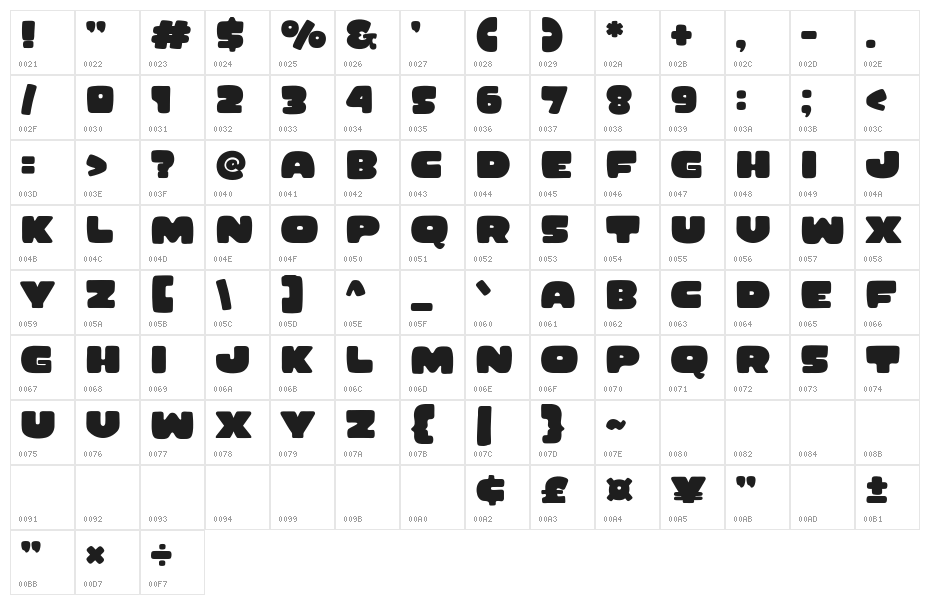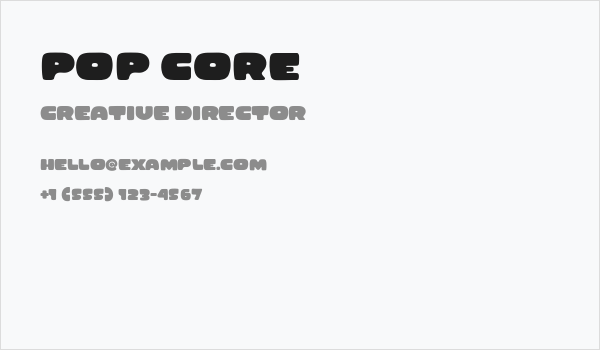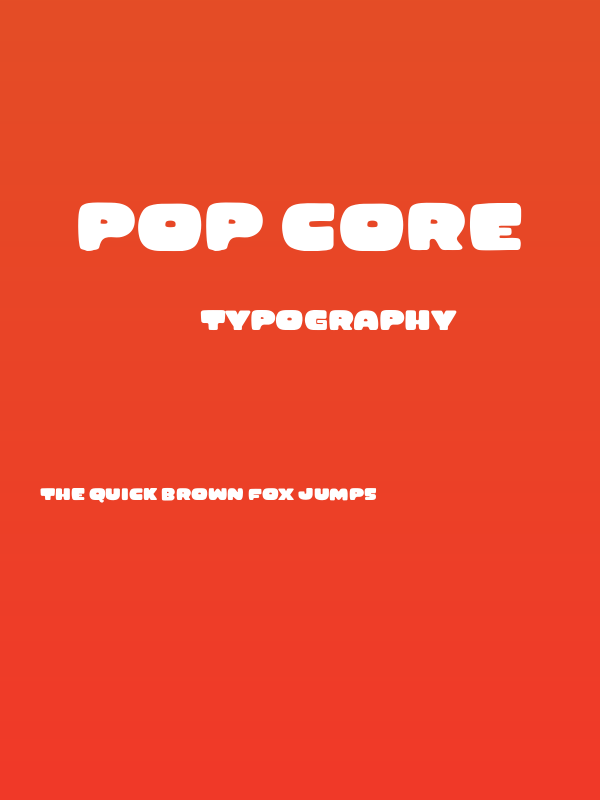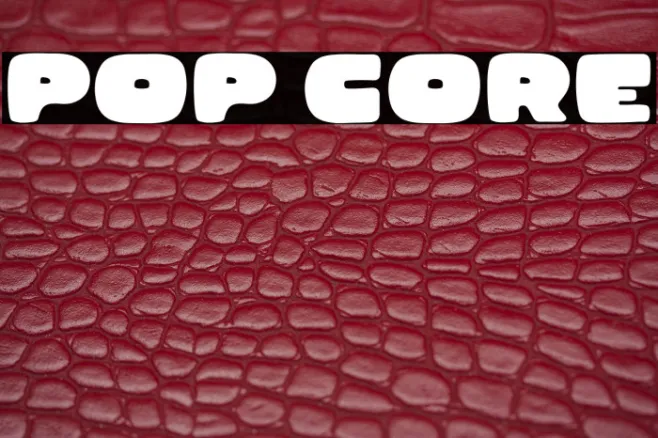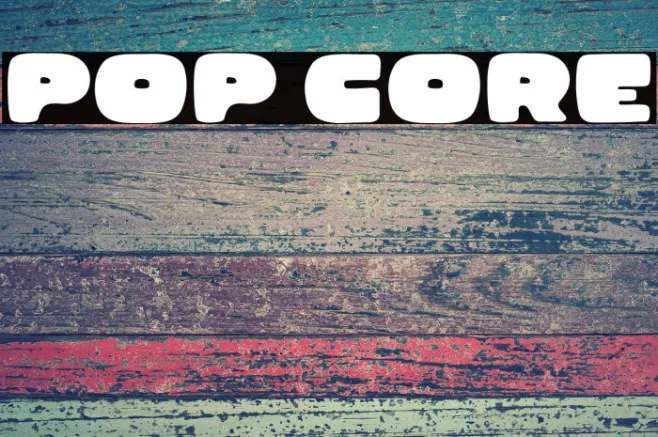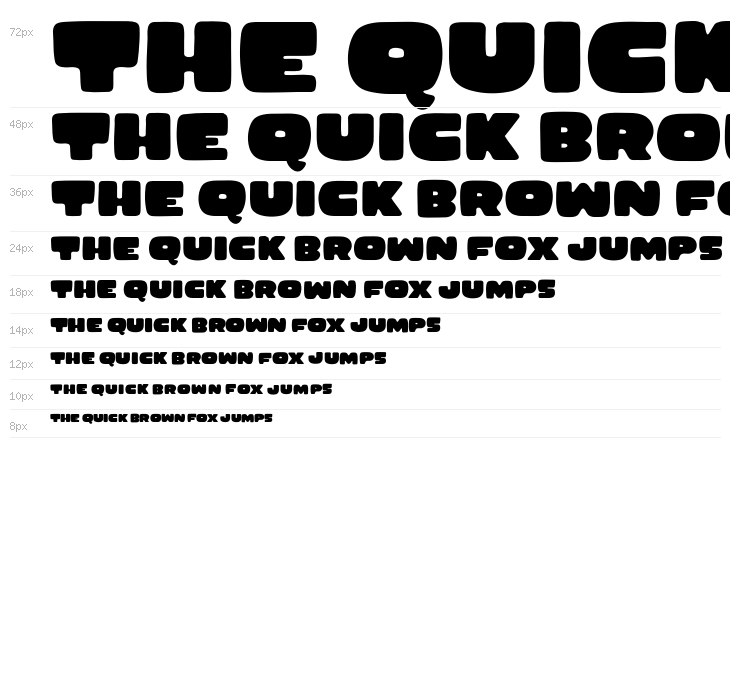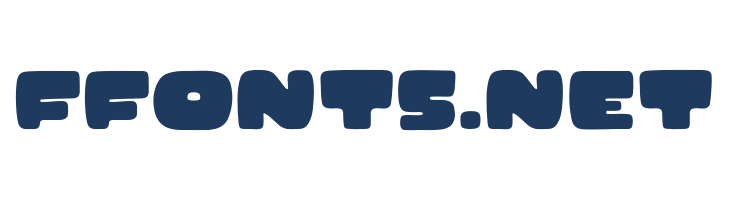
Pop Core Font
Pop Core Description
This font features bold, rounded characters with a playful and chunky appearance. The letters are uniformly thick, giving a sense of weight and presence. The style is reminiscent of retro or pop art designs, with a fun and approachable aesthetic. The characters are evenly spaced, contributing to a cohesive and balanced look. The numbers and special characters maintain the same bold and rounded style, ensuring consistency across all elements. This font is ideal for projects that require a lively and eye-catching typeface.
| Overall Style | Retro, Playful |
| Proposed Projects | Perfect for posters, children's books, comic titles, and playful branding. |